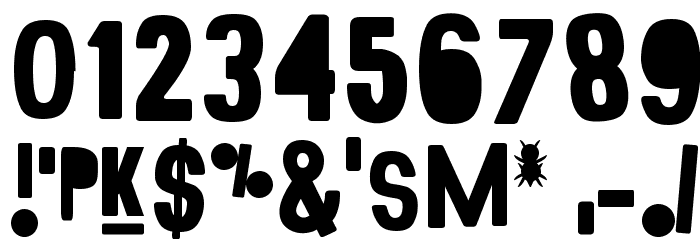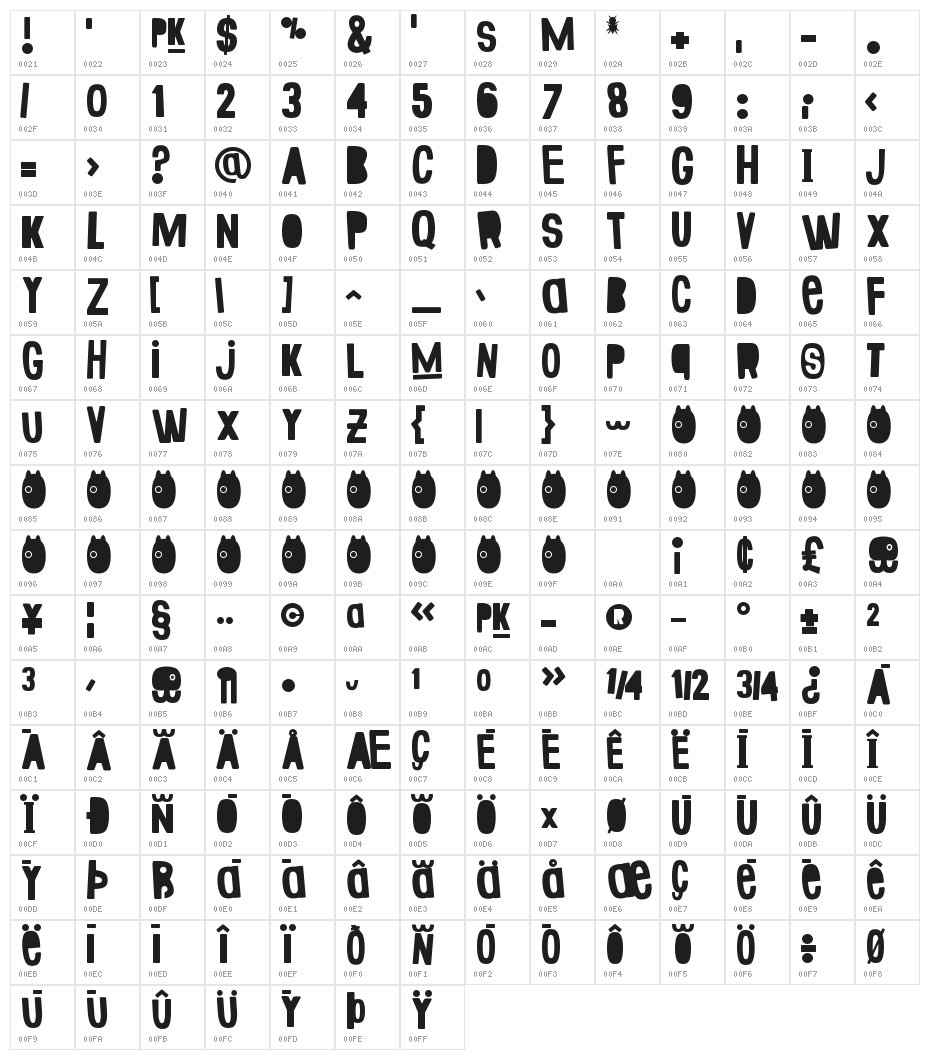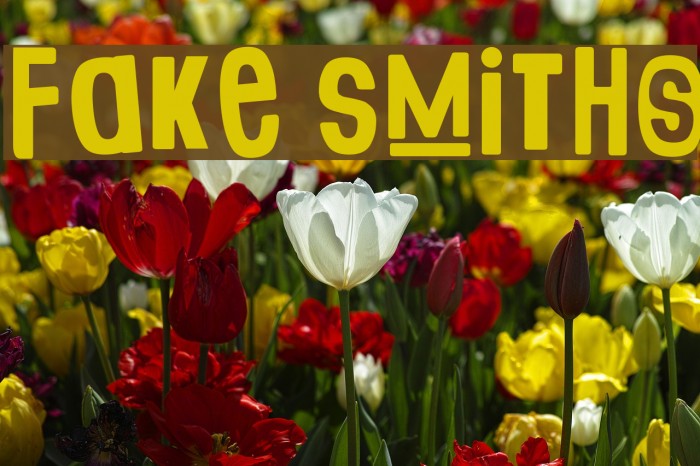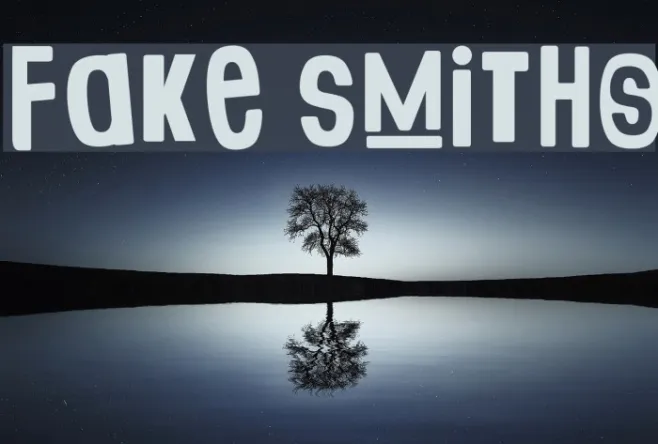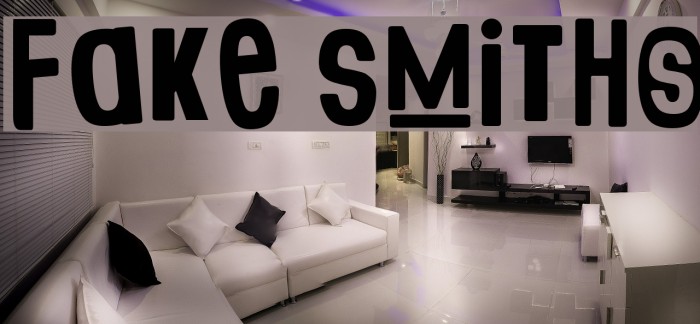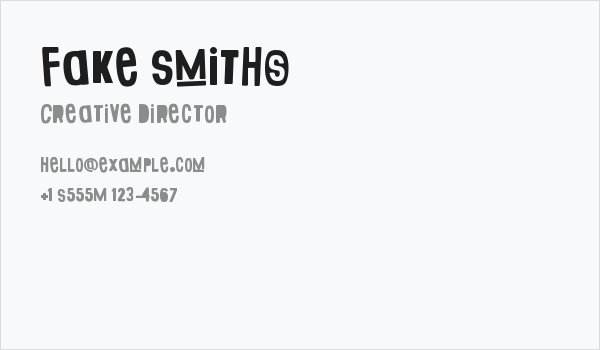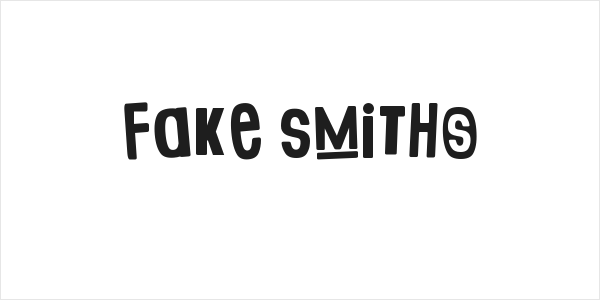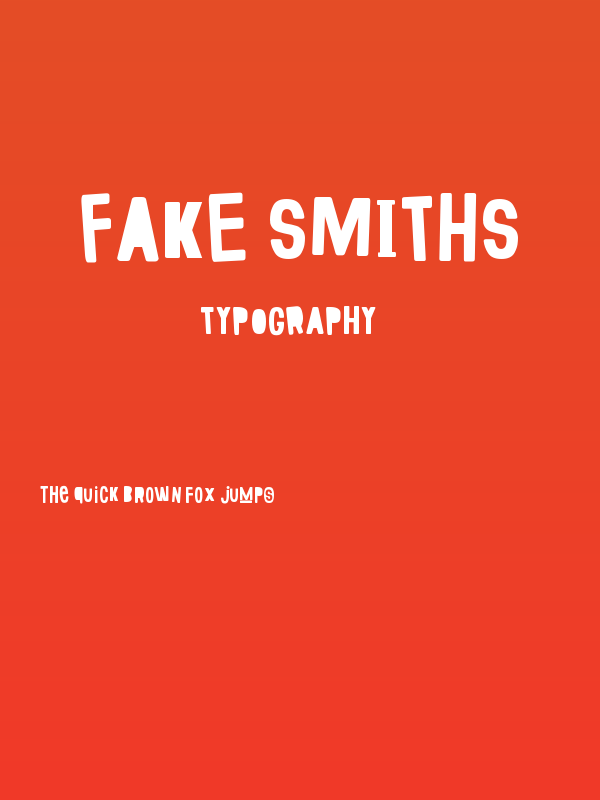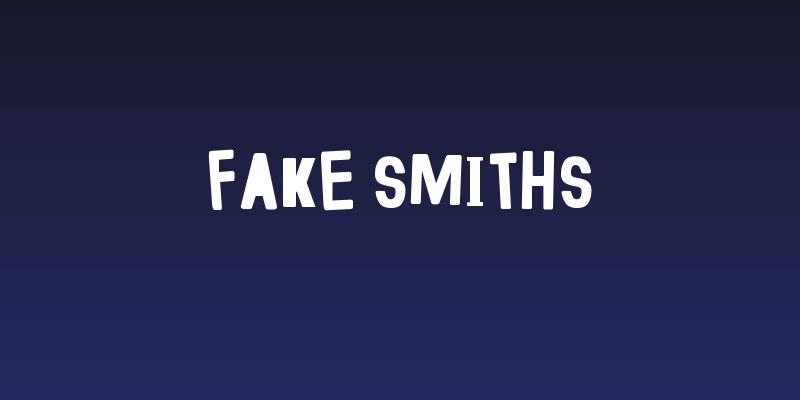
Fake Smiths Font
Fake Smiths Description
This font features a bold and playful design with a quirky, hand-drawn aesthetic. The characters are thick and rounded, giving them a friendly and approachable appearance. Each letter has a unique, slightly irregular shape, adding to the whimsical feel. The uppercase and lowercase letters maintain a consistent style, with some characters having exaggerated features, such as extended serifs or unusual curves. The numbers and special characters follow the same playful theme, making the font suitable for creative and informal projects. The overall look is dynamic and eye-catching, perfect for designs that require a touch of fun and individuality.